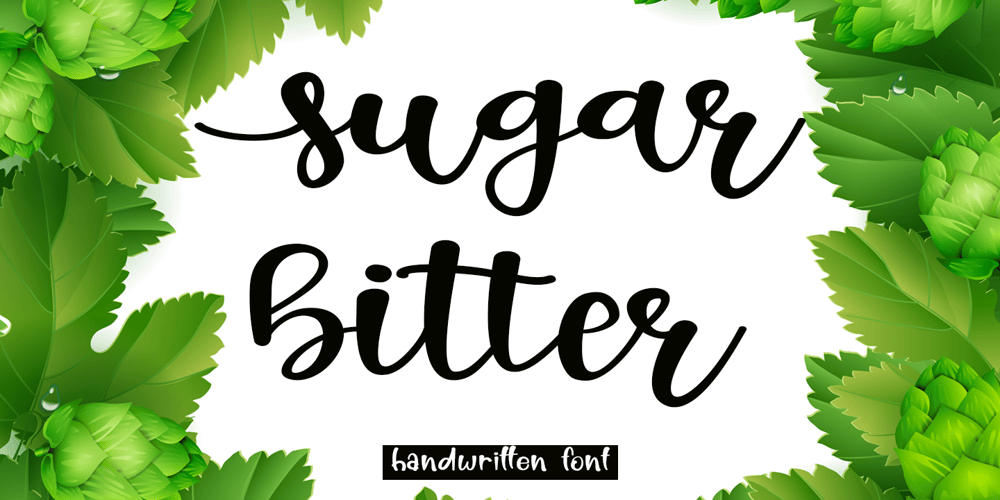
Sugar Bitter Font Family was designed by Arief Tri Sulistiyono and published by Supersemarletter. Sugar Bitter contains 1 styles and family package options. Sugar Bitter is a flowing and lovely handwritten font, created with the help of a beautiful brush pen. Fall in love with its incredibly versatile style and use it to create gorgeous wedding invitations, beautiful stationary art, eye-catching social media posts, and much more! Provide ligatures with special make the design letter looks incredible. Honestly it works perfectly for headlines, logos, posters, packaging, T-shirts and much more.Font Features :• Regular version• Character set A-Z in uppercase and lowercase• Ligatures in Lowercase and special• Alternates option• Numerals & Punctuation• Accented Characters• Multiple Languages SupportedRecommended to use in Adobe Illustrator or Adobe Photoshop with opentype feature.If you have questions, just send me a message and I’m glad to help.